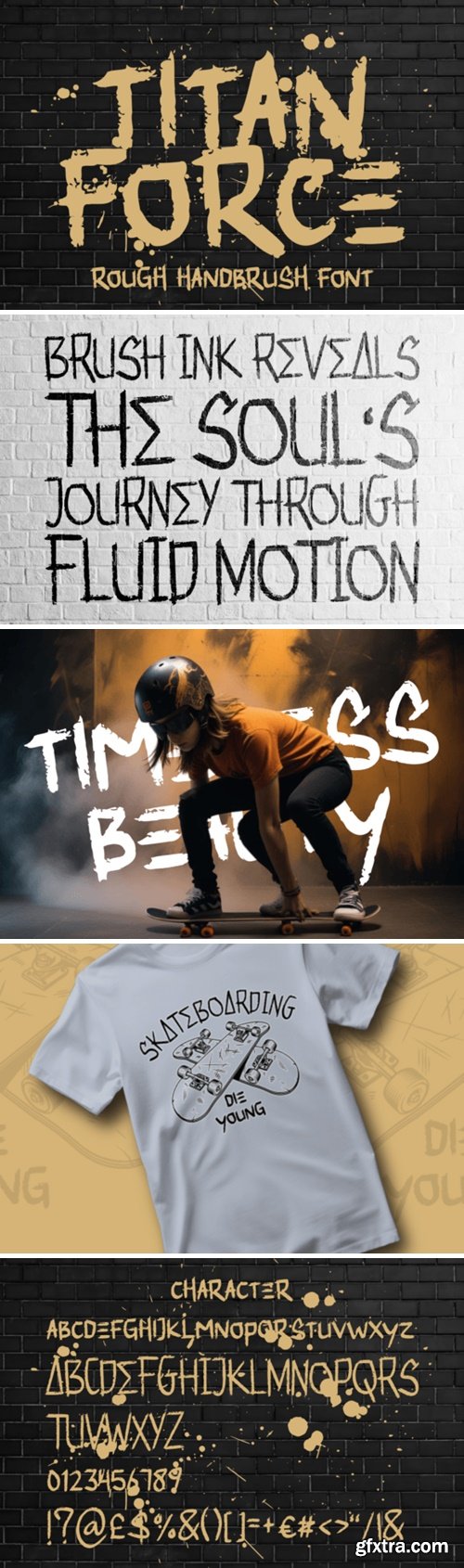
Titanforce isn’t just another font; it’s a statement piece for your design arsenal. Perfect for logos that need to stand out or titles that require an extra punch, this font ensures your message won’t be forgotten. Its versatility extends to crafting unique invitation cards or creating standout book covers and magazine headers. If your project calls for something cool, fancy, and unmistakably bold—Titanforce is your go-to handbrush font.